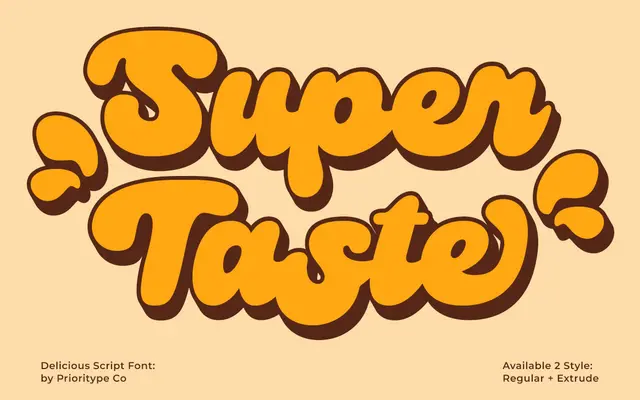
Super Taste – Bold Script Font
Prioritype · 2024
Super Taste – Bold Script Font specimen from Prioritype
A thick, retro-inflected bold script available in Regular and an Extrude variant, aimed at branding and poster work with a vintage flavour.
Two styles make up the family: a standard bold script and an extruded version that adds dimensional depth for poster and packaging use. Characters are rounded and playful with ligatures and alternates included, and the language set covers a broad range of Latin-based scripts. The aesthetic sits somewhere between 1970s groovy lettering and contemporary retro branding, making it a competent but fairly generic option for that niche.
A thick, connected script with retro styling and bold strokes; the foundry explicitly classifies it as a bold script, and its vintage/groovy aesthetic places it firmly in the display script category.